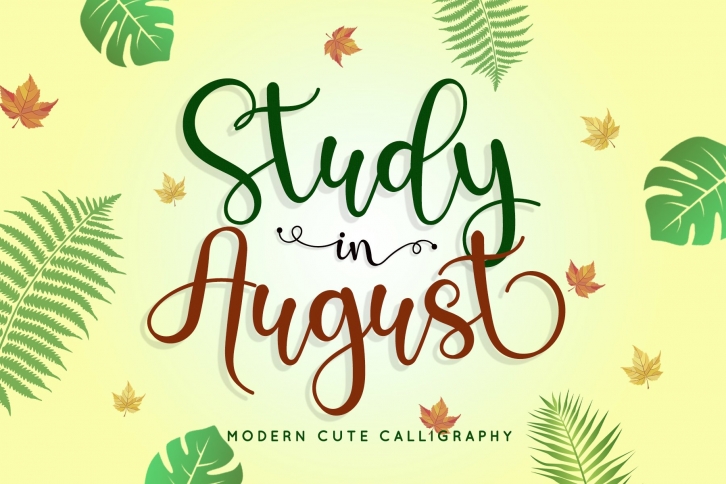
Study in August is a beautiful font that was designed by Airotype. It's a great choice for designers and creatives who need such a font. It was released on August 11, 2020 and the file size is 9.88 MB. Study in August may give a more youthful, expressive and casual look to your project. It is a very beautiful, refined, elegant, and high-quality font.